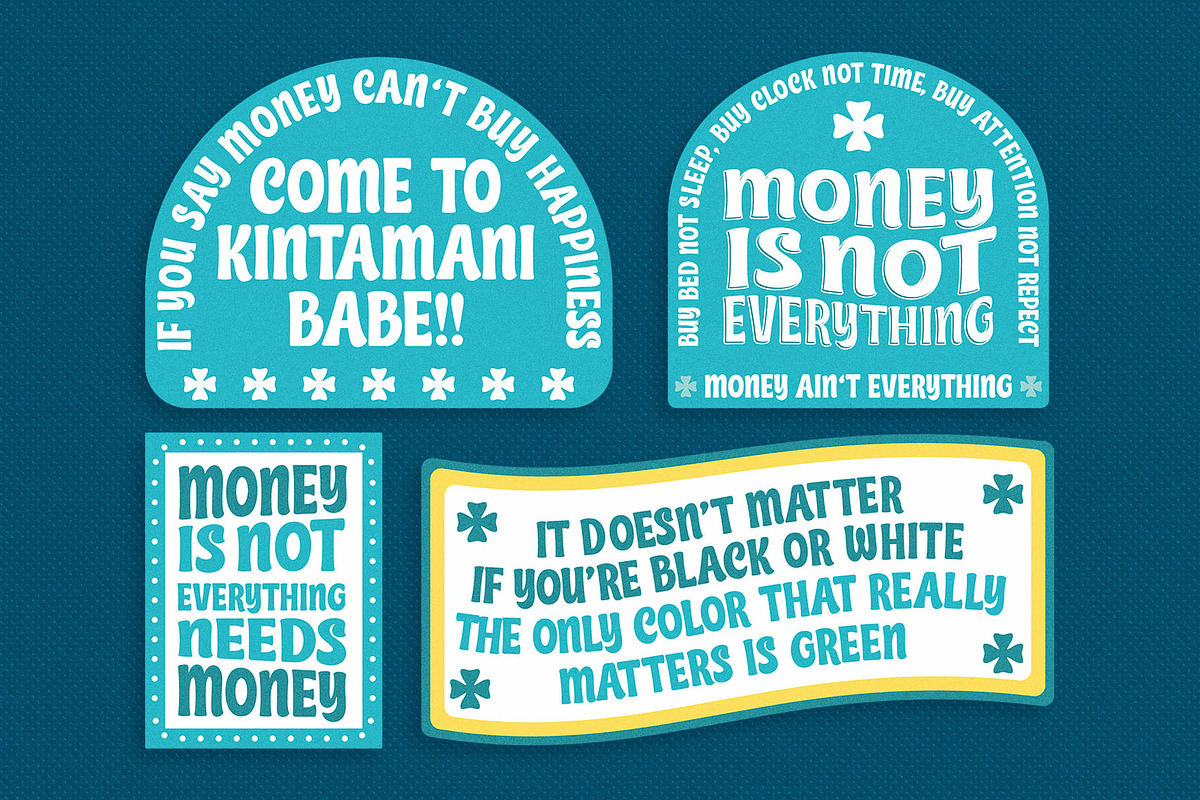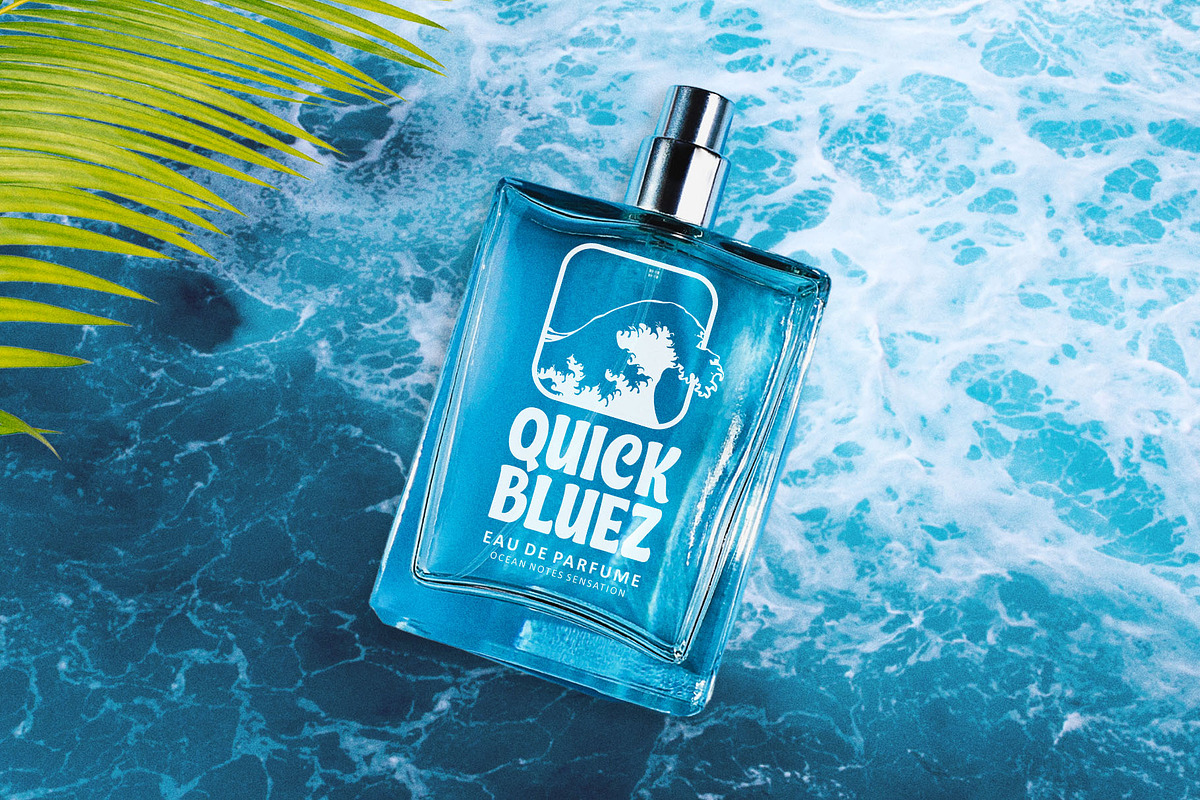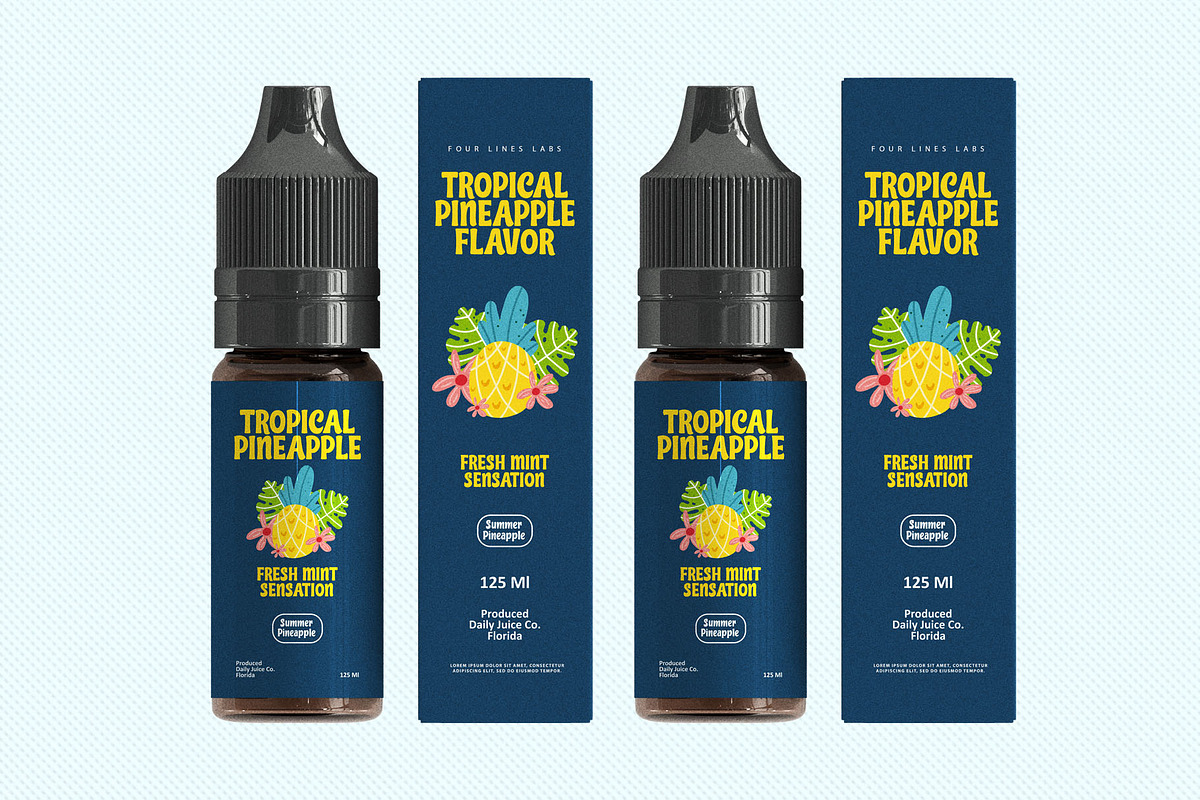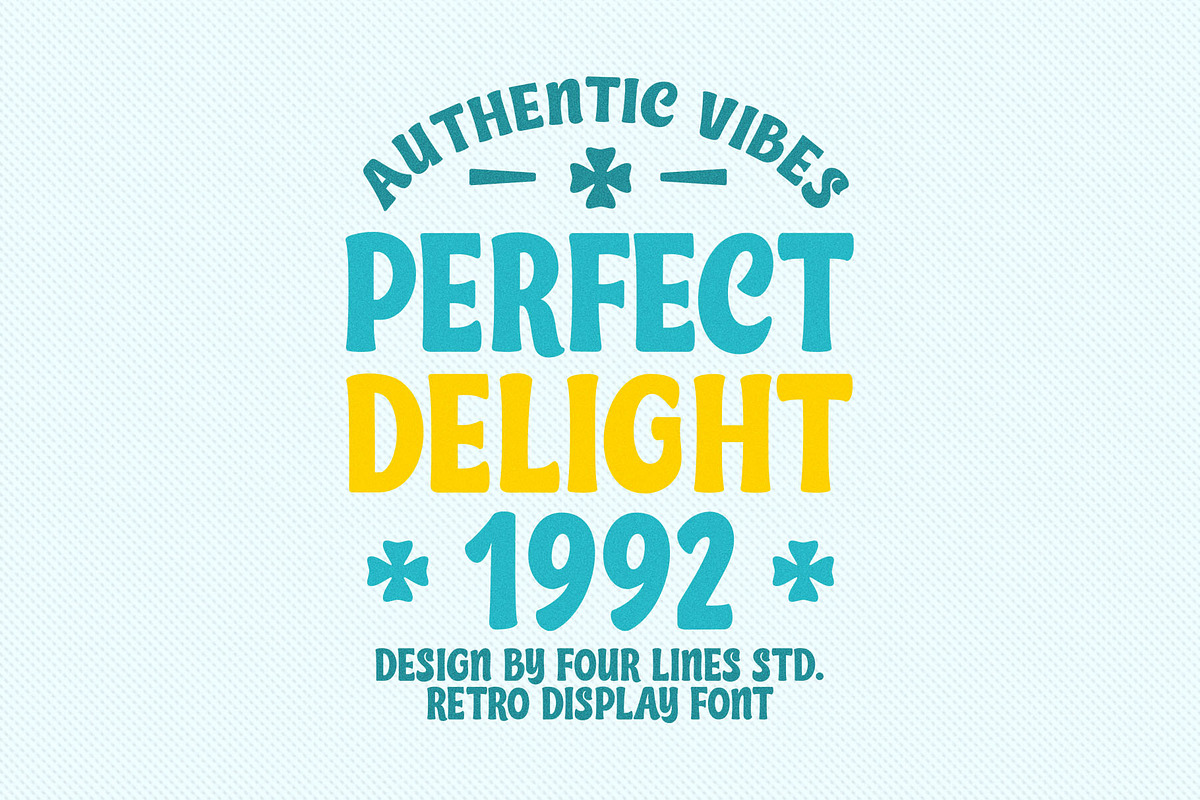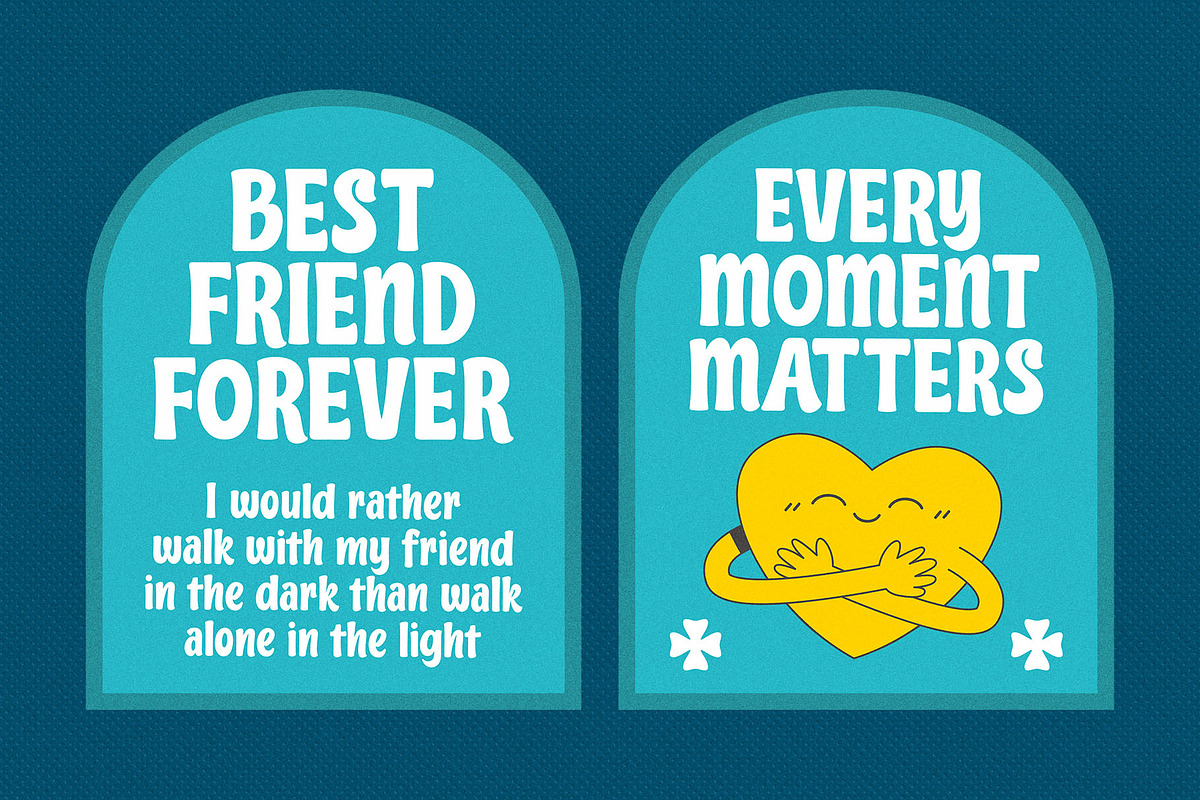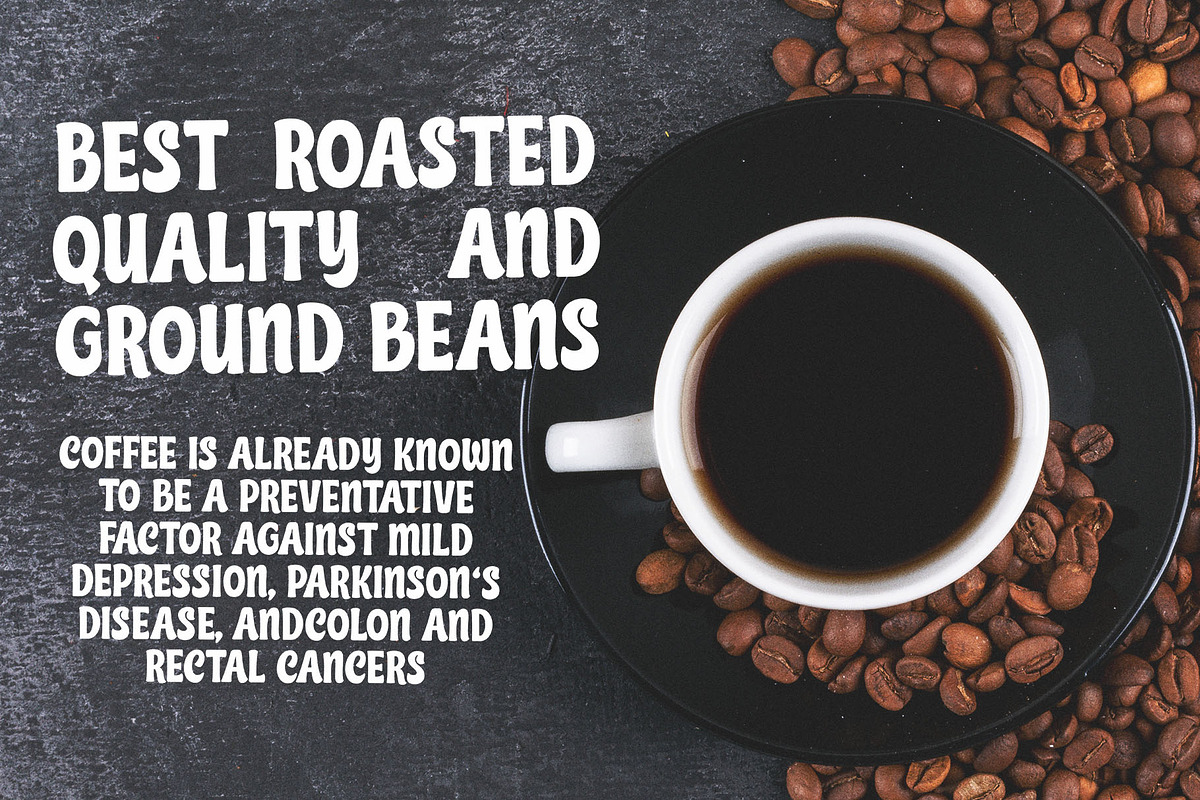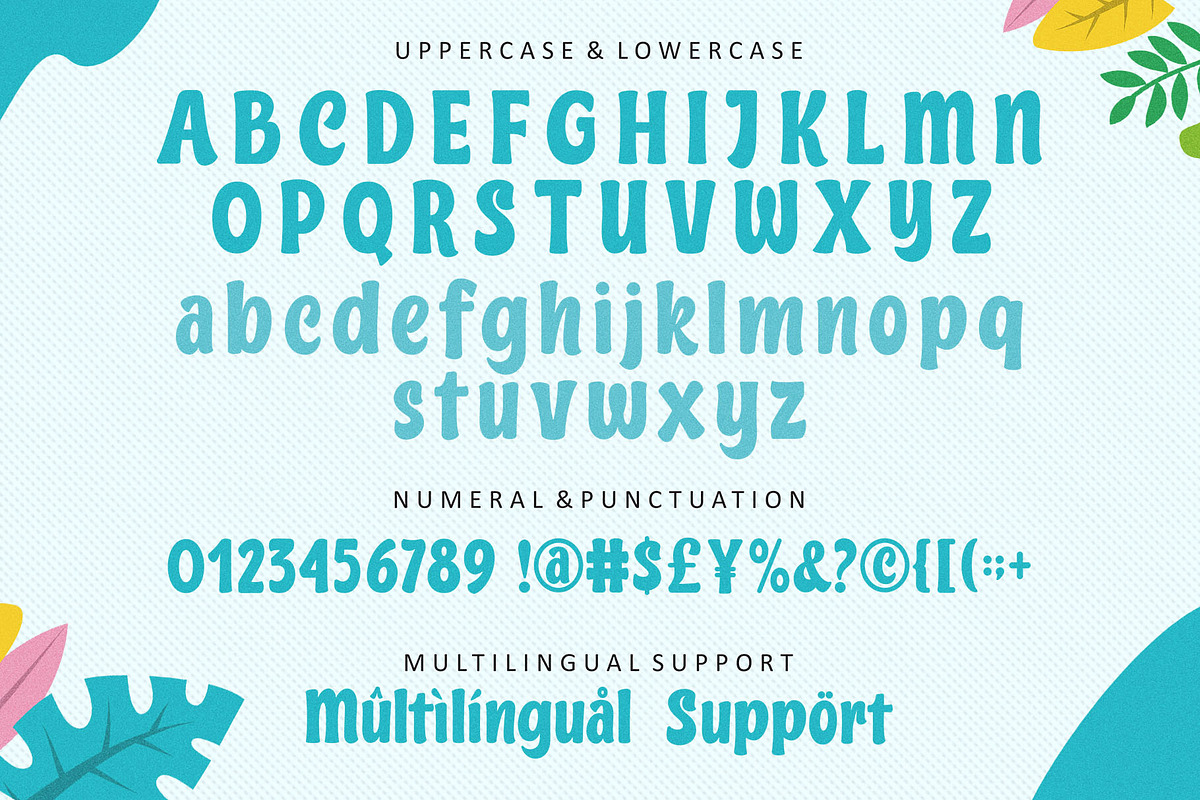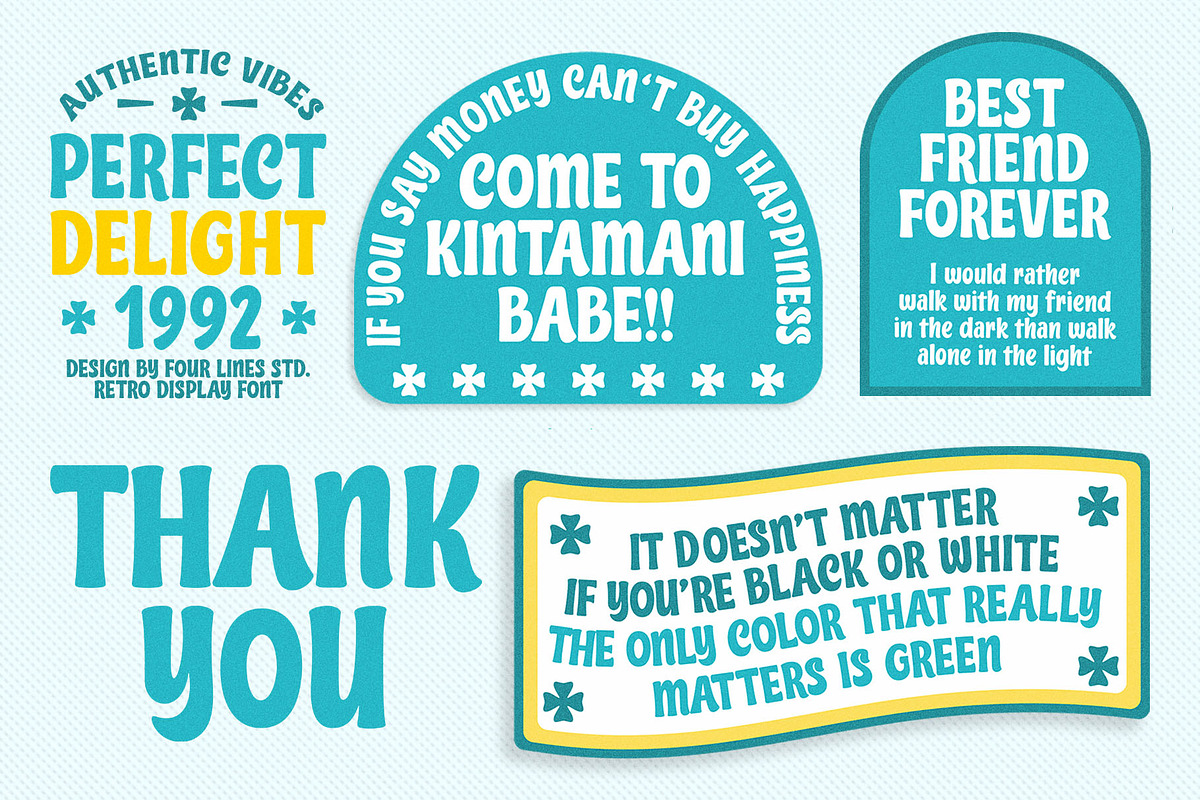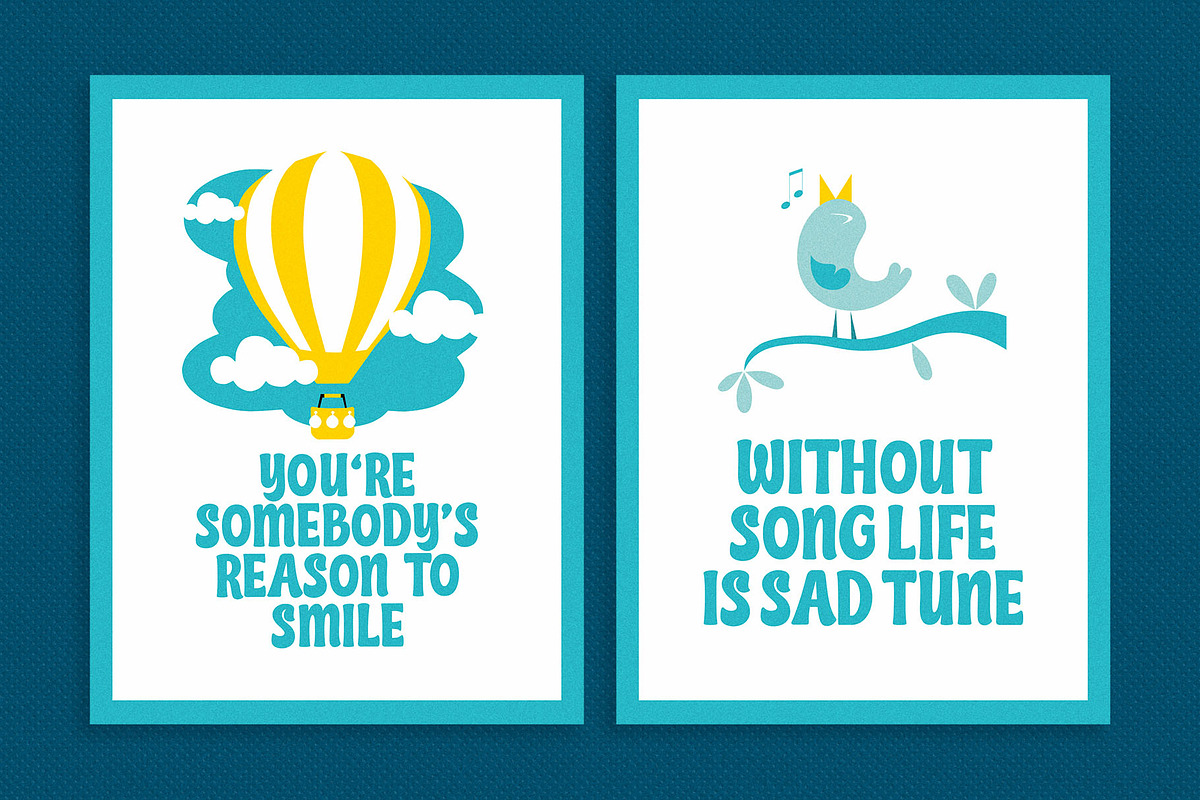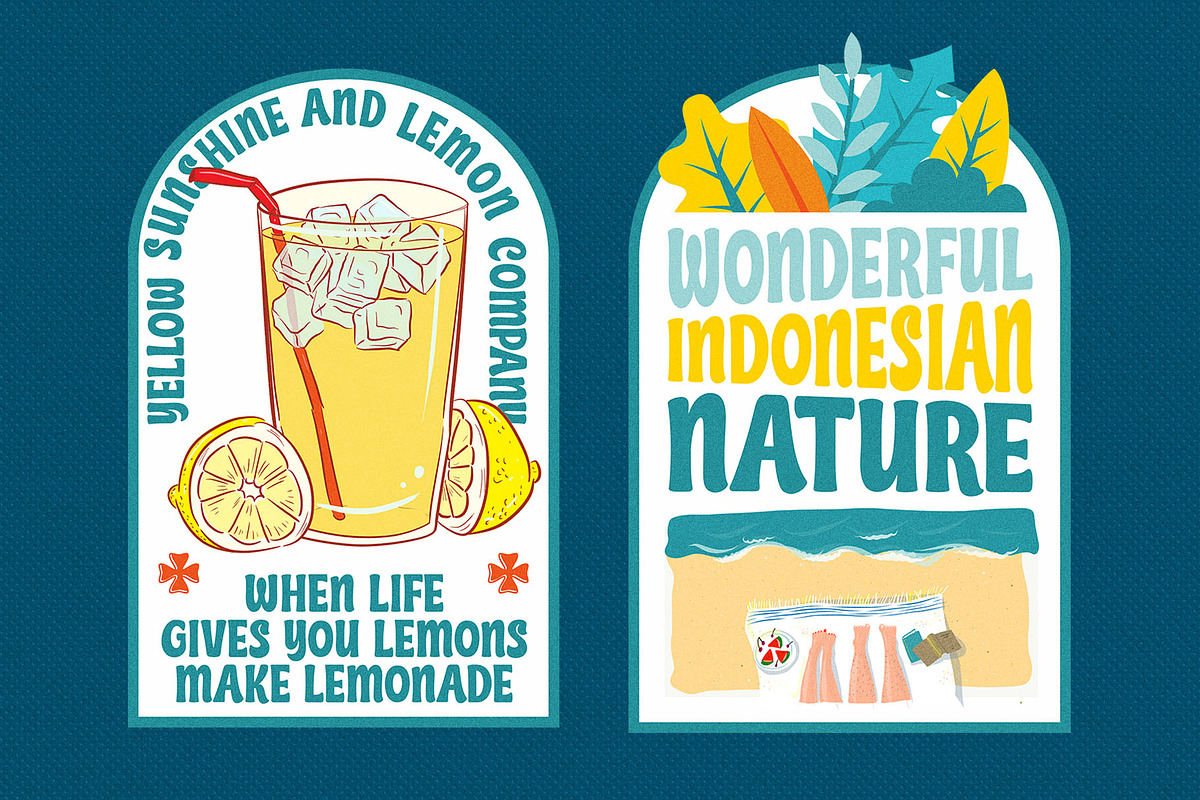
Perfect Delight 1992 - Retro Display
Perfect Delight 1992 It's the font that turns ordinary into extraordinary. Let the font transport you to a world where the past and present coexist harmoniously. It's more than a font; it's an experience waiting to be explored. Try it today and embark on a creative journey that marries the best of retro aesthetics with contemporary readability.